2 Google Fonts Similar to Canela
Canela is a display typeface that bridges this gap between sans and serif. It is a modern font with hints of classical text in it. It is a delicate font that has easy flared strokes. As the font progresses through different weights, it carries itself differently but still maintains it's elegance.
This is why it was difficult to find a good alternative. It was tough to find a good match between those different styles.
However, after searching through the Google Fonts library, I was able to run into two fonts that would work as a decent alternative. Although not a perfect match, they would work well for a project running on a budget.
What Google Fonts are Similar to Canela?
The best Google Font alternatives similar to Canela are:
- Spectral
- yrsa
Either one of these fonts would make for a good alternative. So let's cover some of their differences and similarities.
Spectral
Spectral, in my opinion, would probably be your best bet in finding a replacement for Canela. It does an ok job in matching the lowercase letters. Although there is different thickness in the strokes, overall it gives off a similar look and feel.
The uppercase is where things start to differ some. The uppercase "G" and "J" are noticeable different, while all the other letters carries some slight differences, but could work.
Go ahead and compare below.
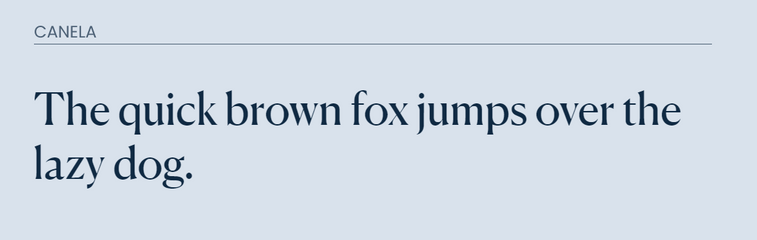
YRSA
YRSA makes a solid attempt in looking like Canela. It features much of the same letter formation with a few exceptions. It is also an elegant font that is easy to read.
Although it is not an exact match, it shares many of the same features and characteristics.
The lowercase letters are very similar with minor differences, but the uppercase letters is where you start to see some differences.
You will see a difference in the width of the letters and that the letters are more rounded in Canela.
As far so the format of the letters go, you will see the main differences in the "G" and the "J".
Compare below.
Final thoughts
Despite not being perfect matches, either YRSA and Spectral would be good alternatives for Canela. With some minor tweaking in photoshop, you can achieve a similar look.